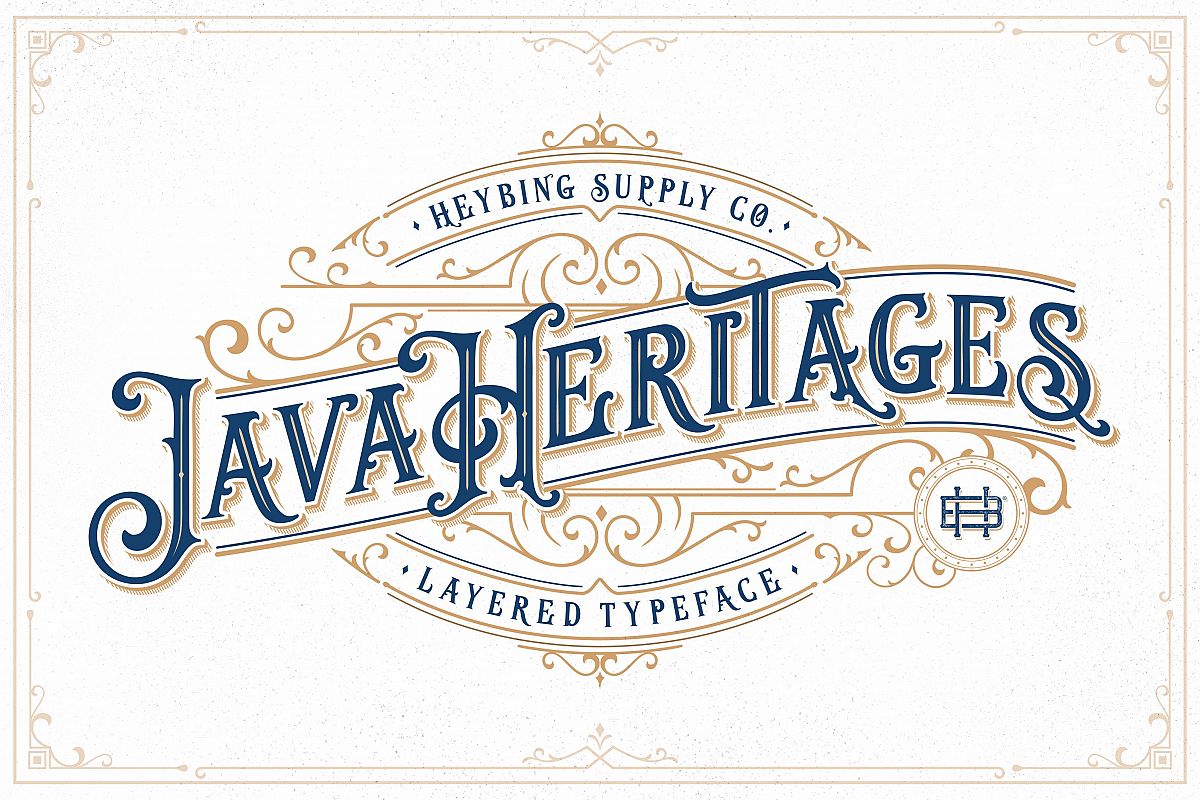
Java Heritages Typeface is a multi-layered type family with opentype features, inspired by vintage signage that have unique decorative shapes. Comes with 4 font system that can be layered to create different effect (Regular, Drop Shadow, Inner Shadow & Inline).Java Heritages Typeface includes a full set of character A-Z, as well as multi-lingual support, currency figures, numerals, and punctuation.
• Layered font system
• Character Set A-Z
• Numerals & Punctuations (OpenType Standard)
• Accents (Multilingual characters)
Java Heritages Typeface family is perfect for logotype, gig poster, letterhead, dropcap, titles, and any artworks.